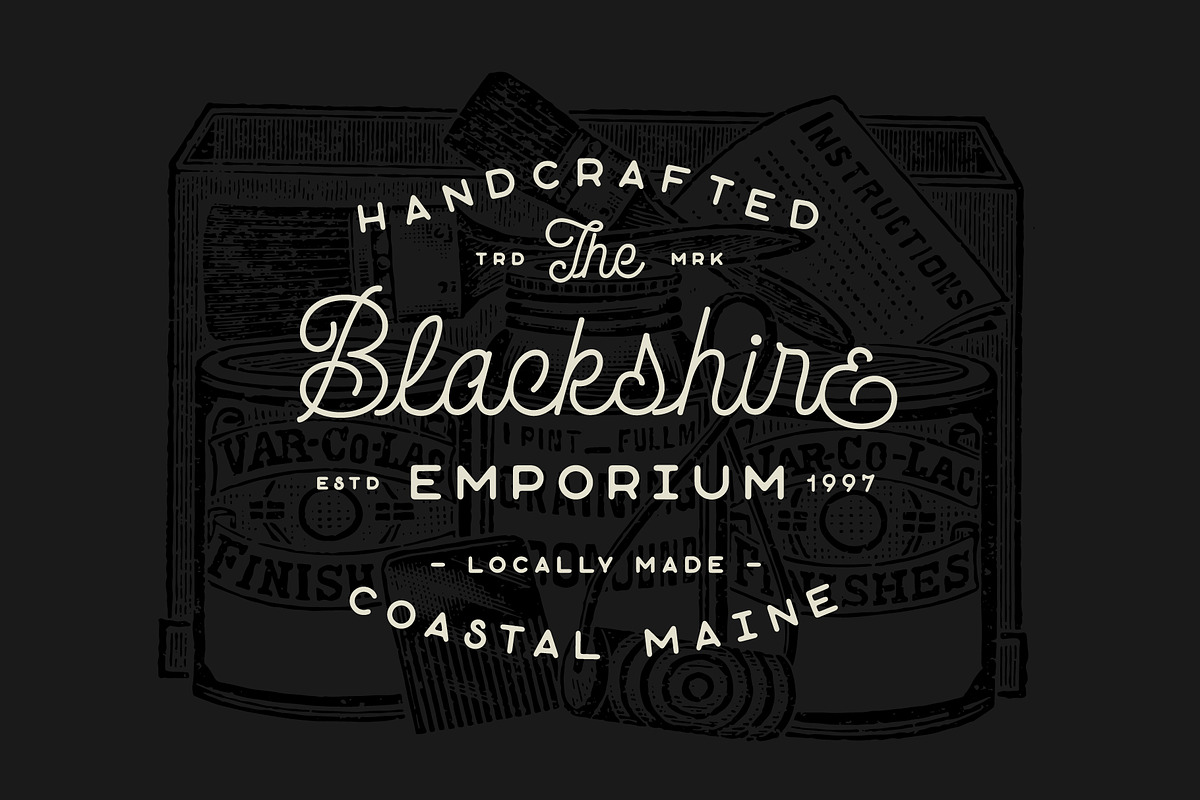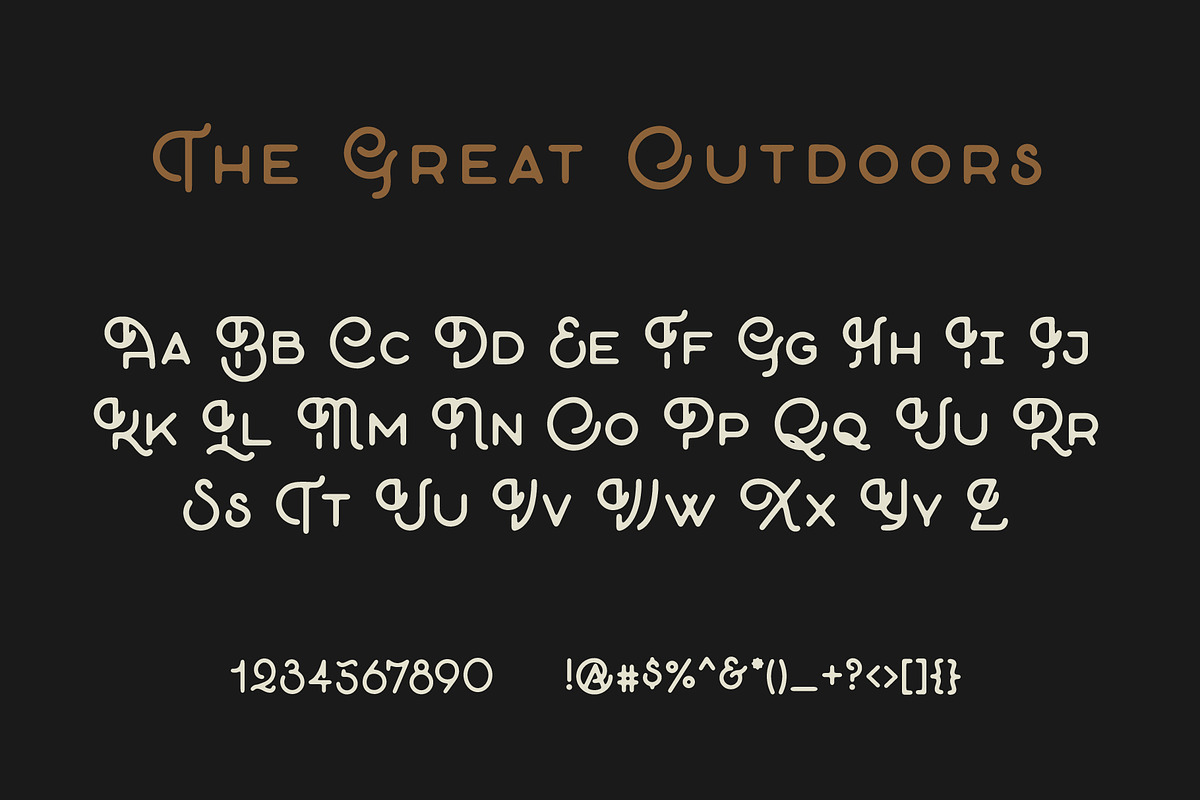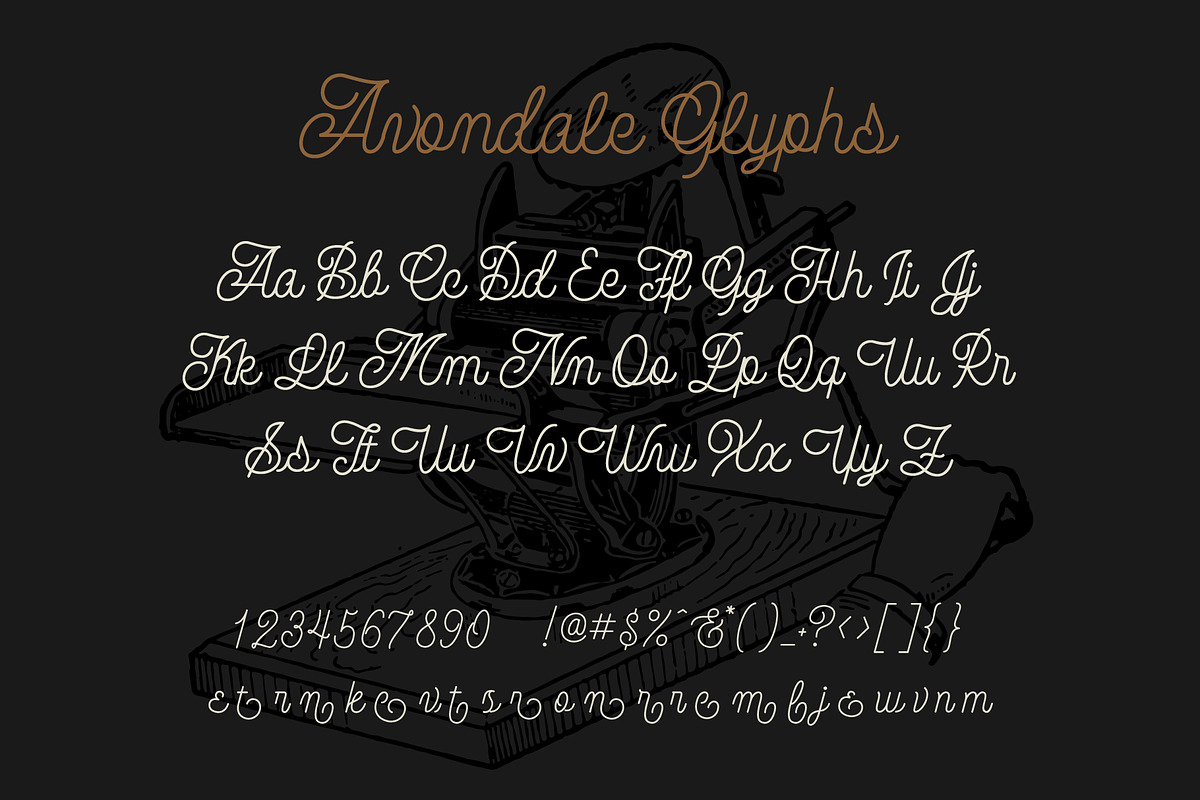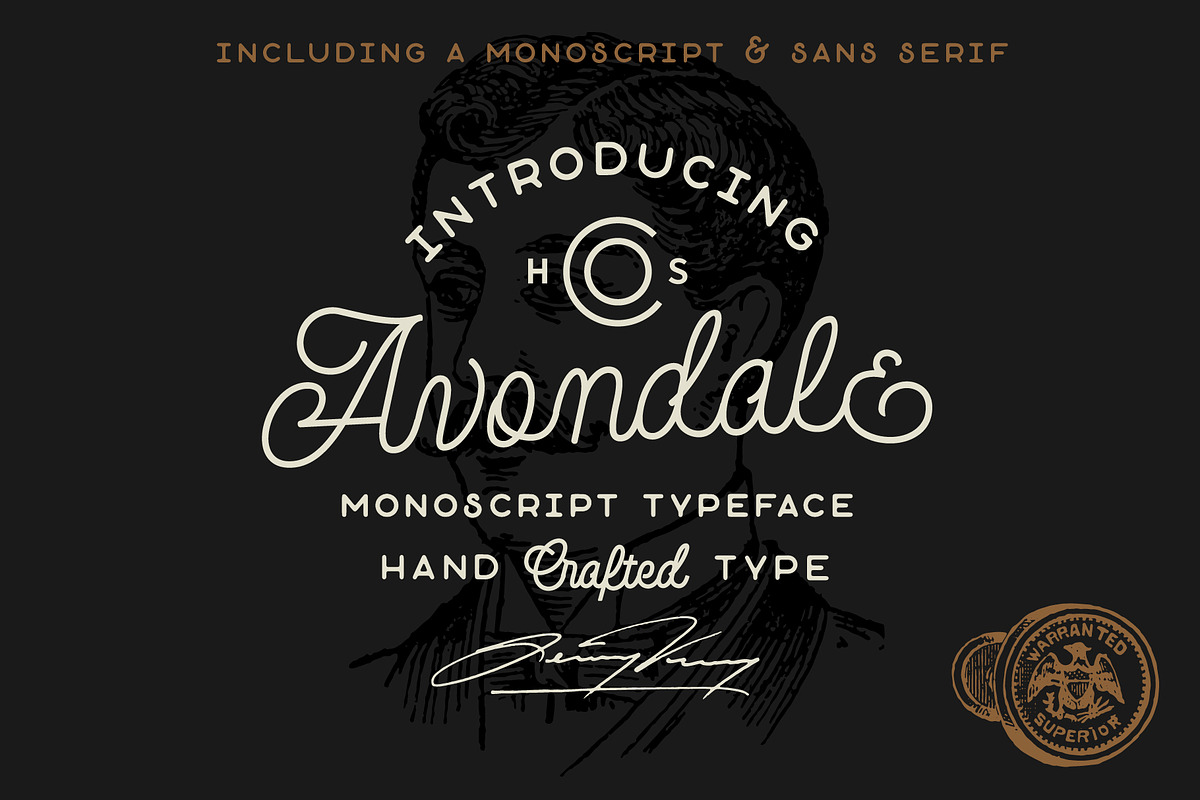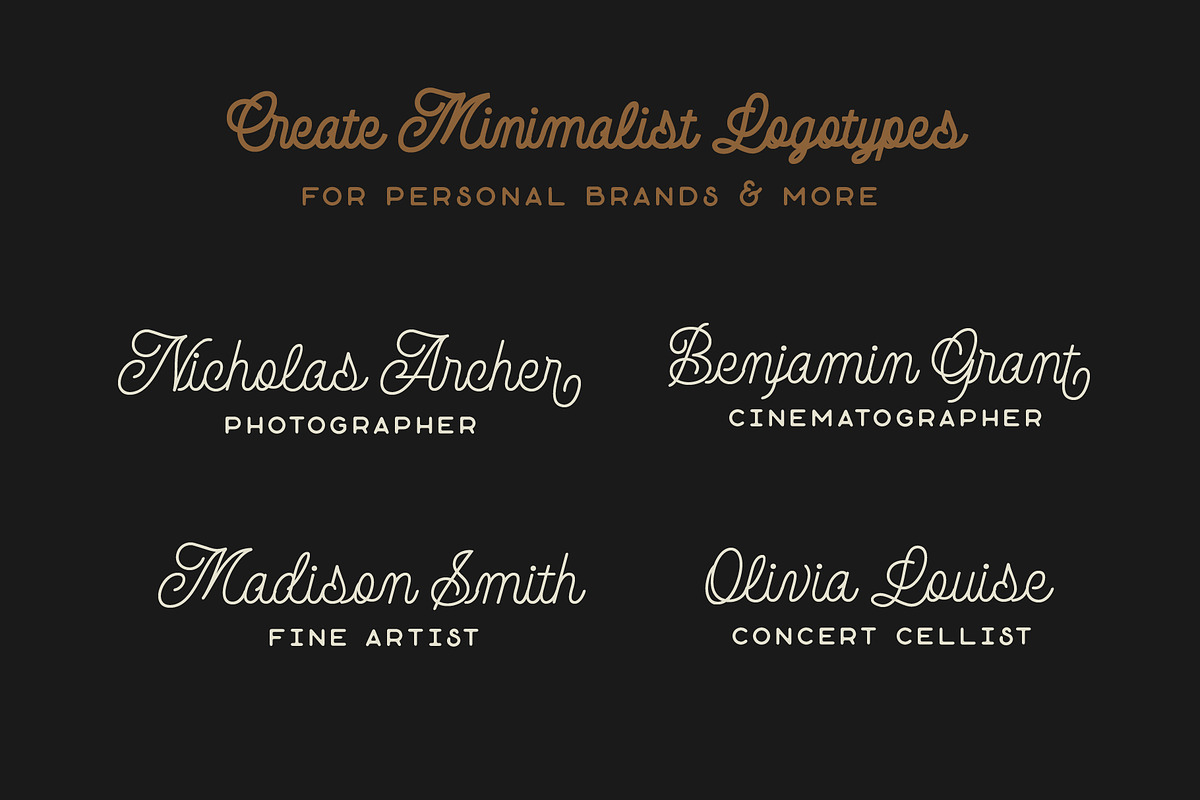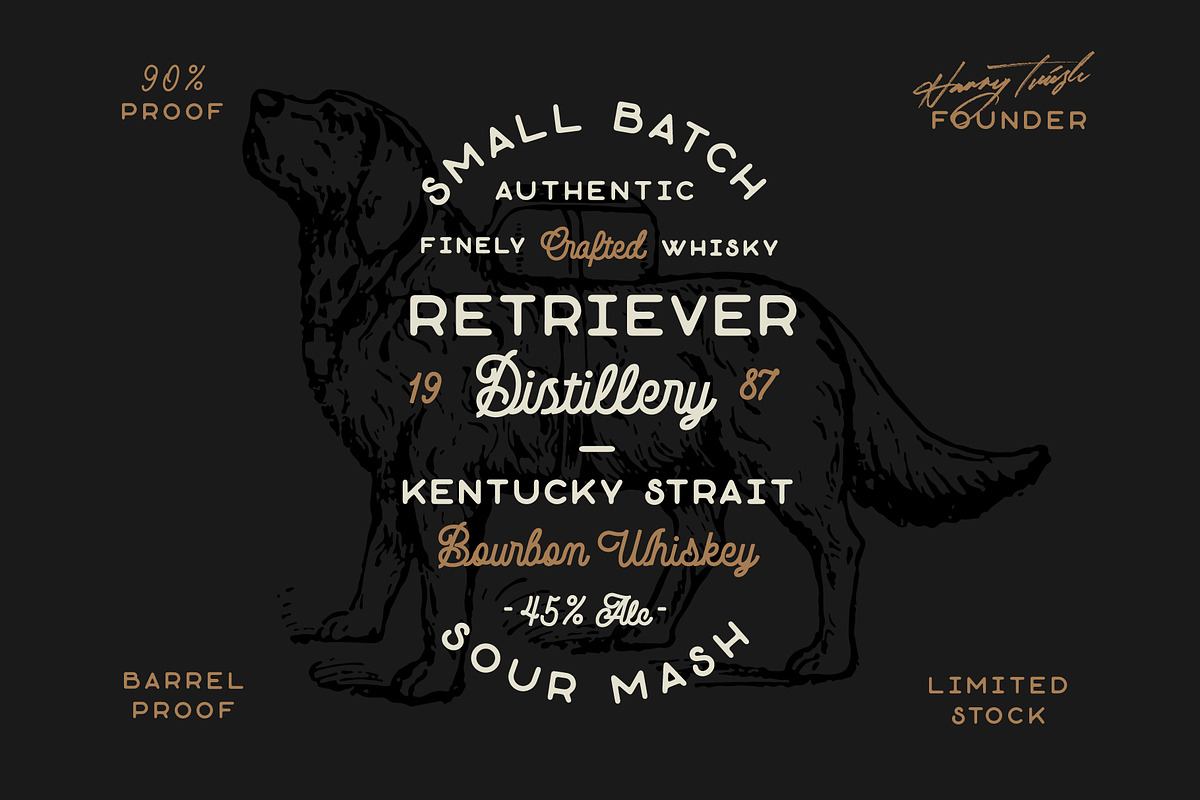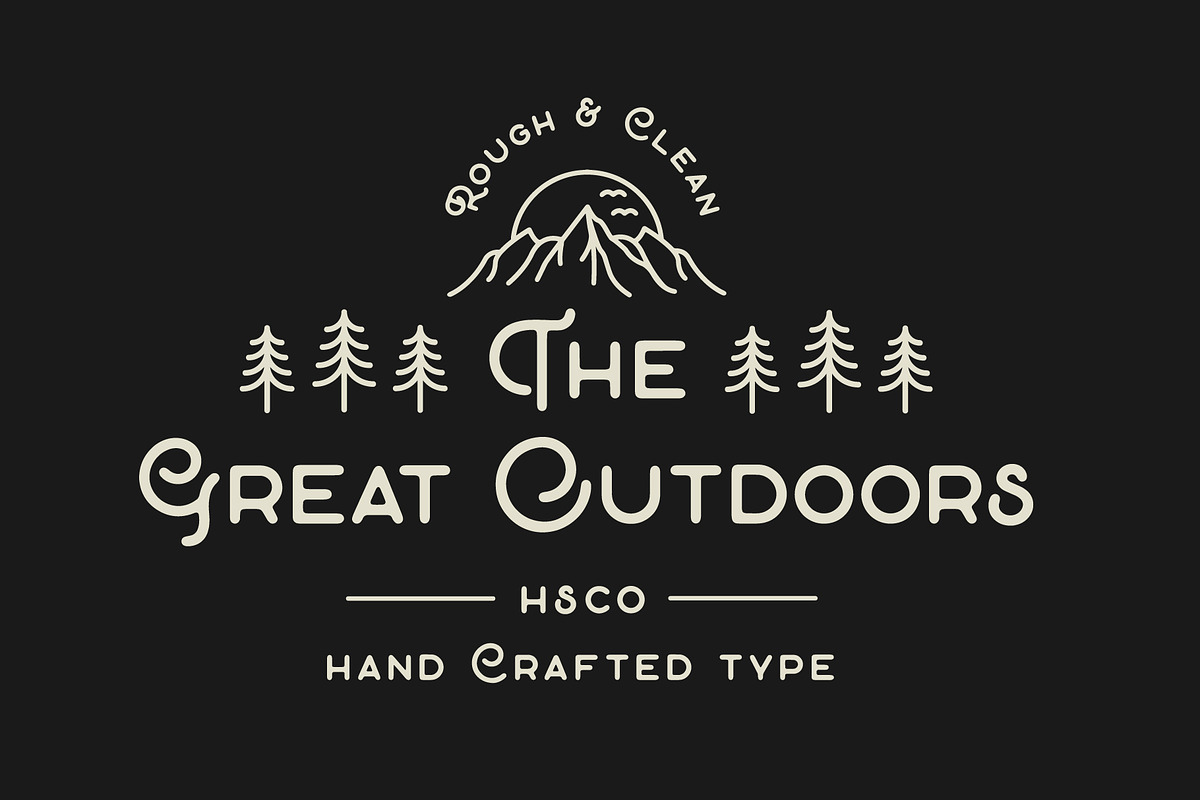
Avondale - Monoline Font DUO
Introducing Avondale This font duo (Avondale Monoscript + The Great Outdoors Mono-sans serif) is a great addition to your font library! It inspires a minimalist handcrafted aesthetic that pairs so well with monoline illustrations. Get these 2 products today for the price of 1.
Avondale in Light, Regular & Bold weights
Avondale with Rounded / Regular options
The Great Outdoors Sans Serif in Clean & Rough Versions